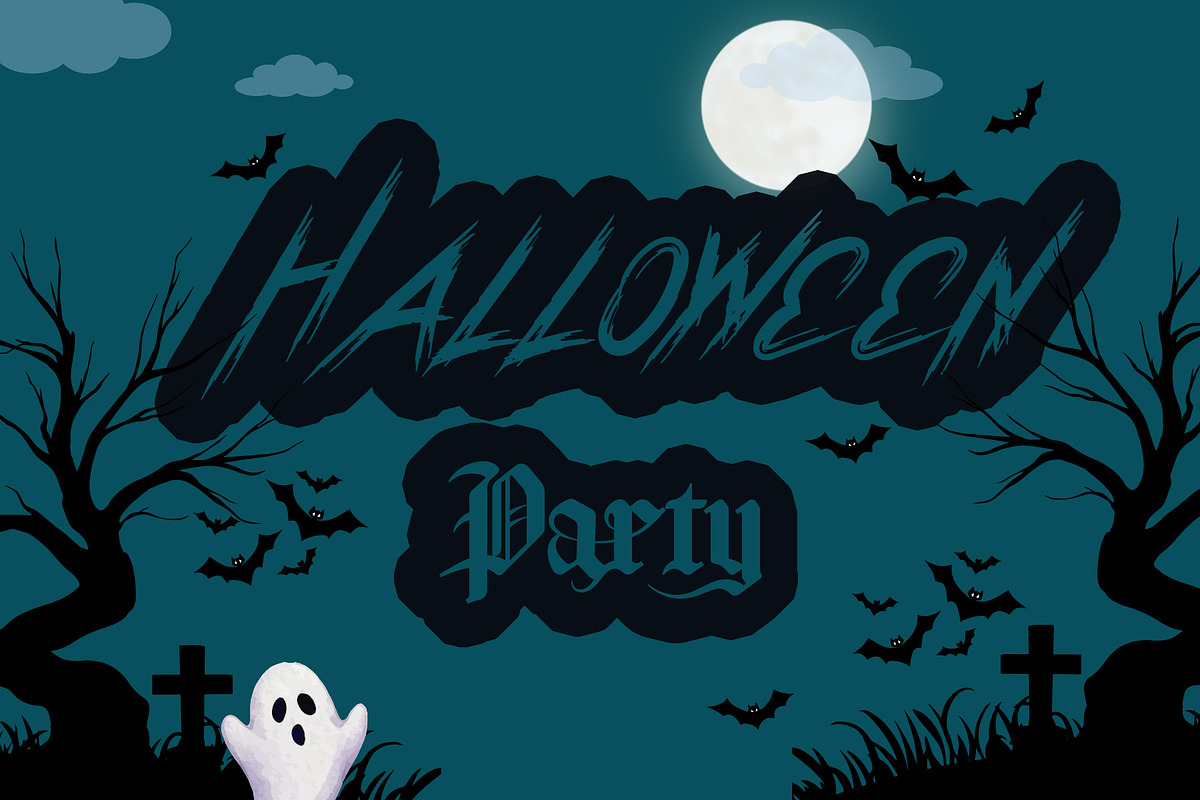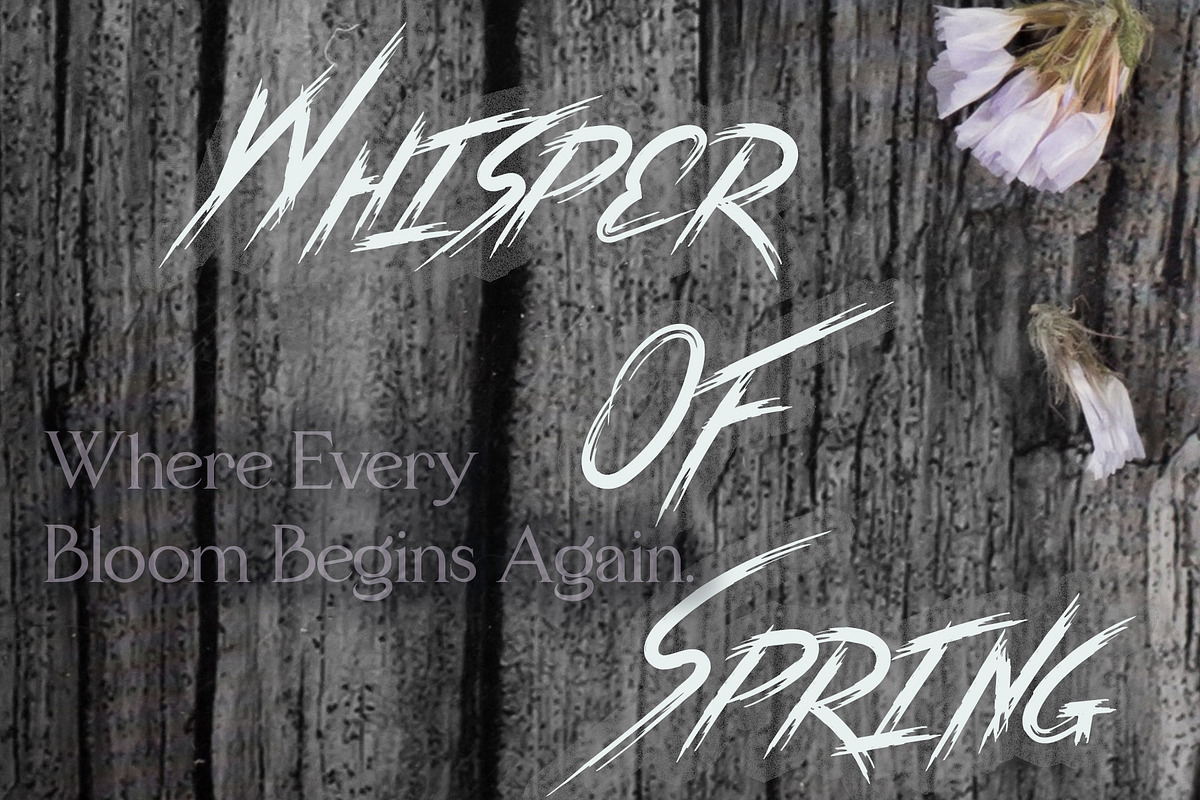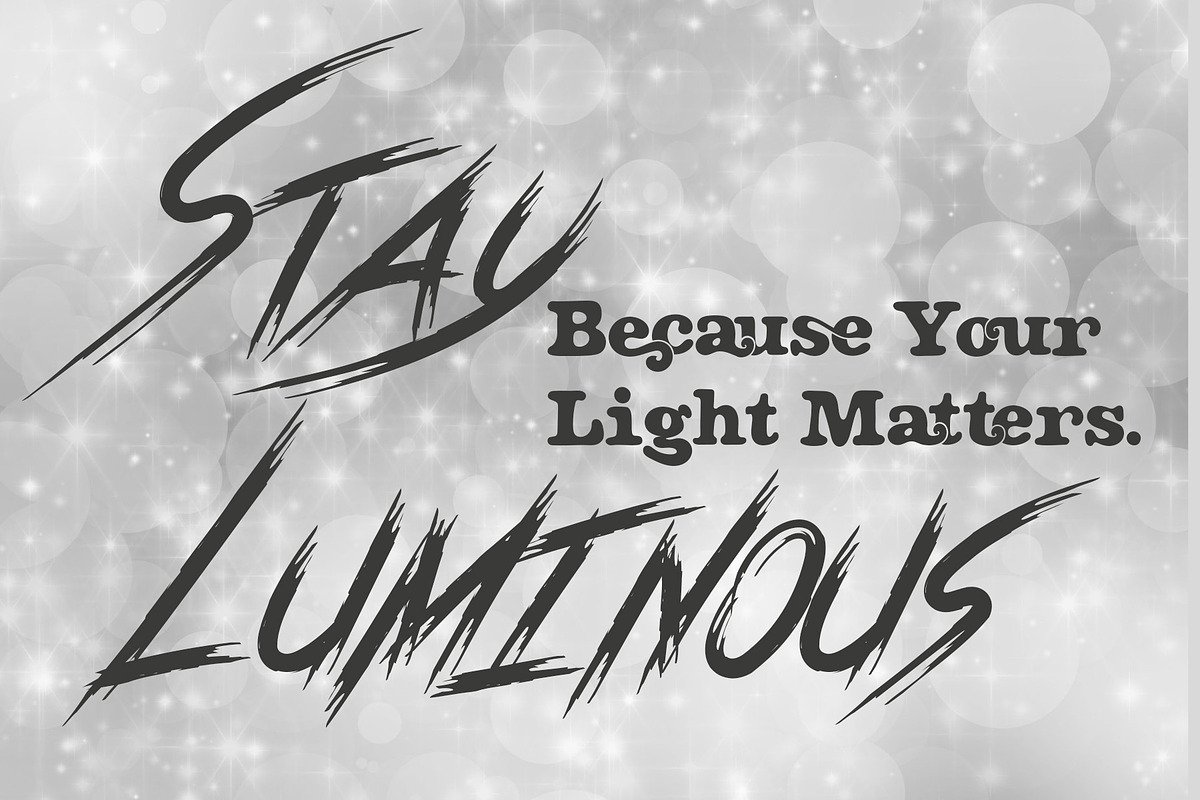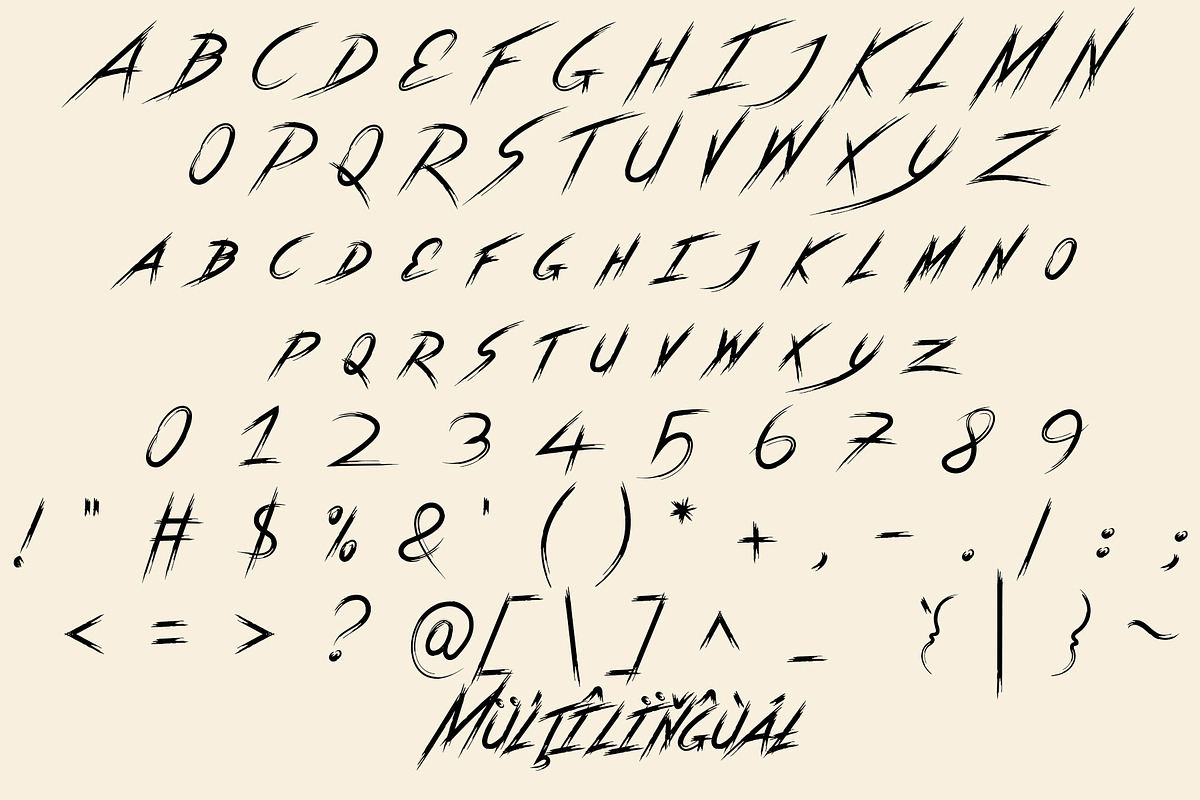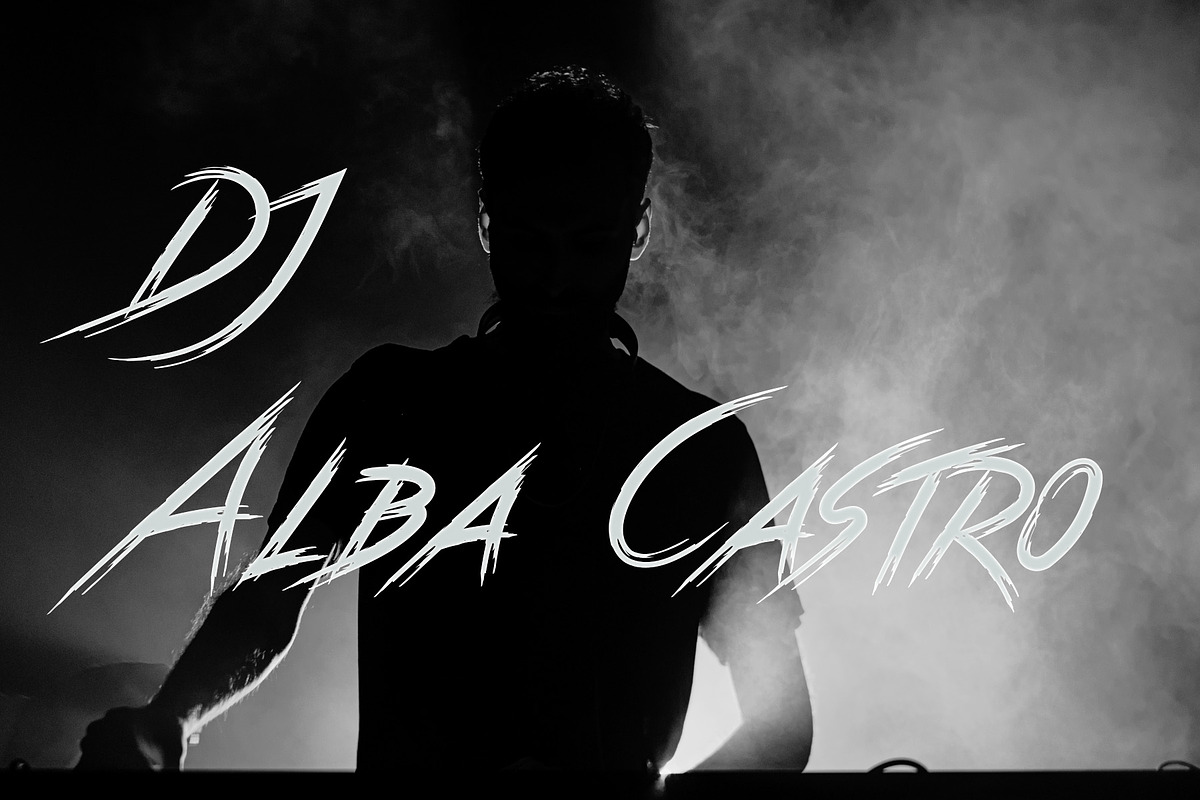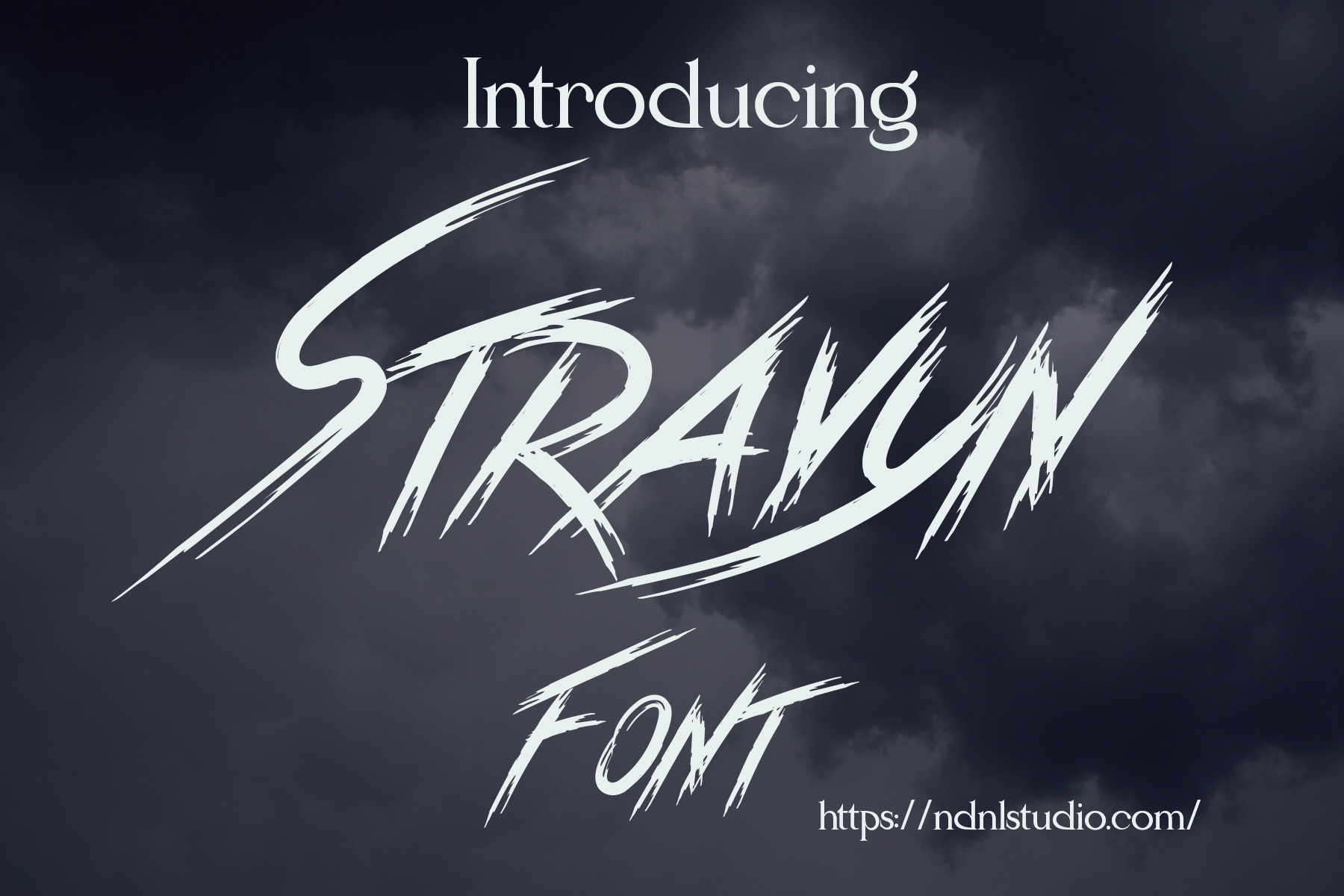
Stravyn - Brush Font
Introducing Stravyn!
Stravyn is a wild and energetic brush font that captures the spirit of rebellion and motion. With its sharp strokes and raw texture, it brings intensity and attitude to your designs — perfect for posters, album covers, logos, and any creative work that demands bold expression.